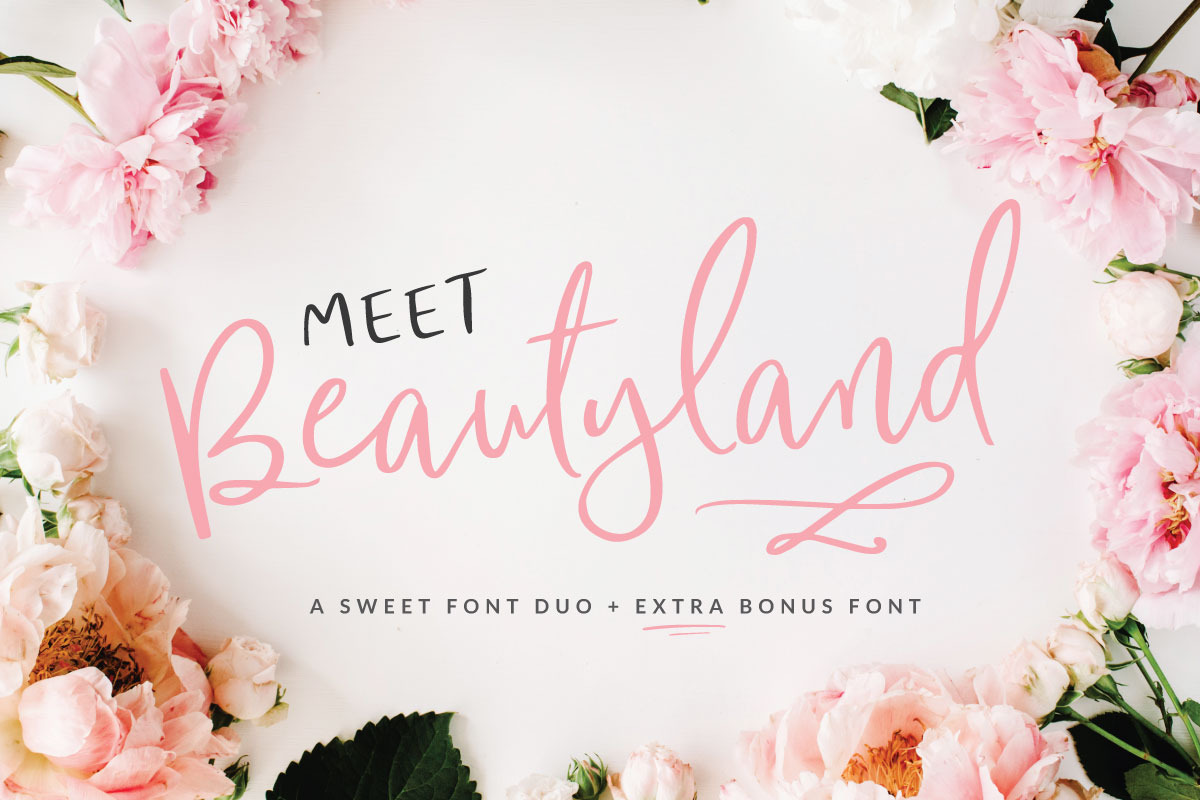
Beautyland Script Font
Beautyland is a casually handwritten typeface with a natural, smoothly curved and stylish approach. Perfect for cards, invitations, thank you notes, printed quotes, logos and branding projects, product packaging, magazine or book headlines, digital advertising and social media branding applications, among many more. This font will bring a charming and lovable look to your design creation making your texts to look realistic and appealing.
This font is composed by three different styles: Beautyland Script, Beautyland Sans and a bonus font with underlines, arrows and additional dingbats. Also features stylistic double letter ligatures for a more realistic text design. This font set was specially designed to be used jointly, but it also works perfectly as independent fonts each.
- Full upper and lowercase
- Character set A-Z
- Accents (Multi-lingual support)
- Traditional Double Letter Ligatures (plus extra)